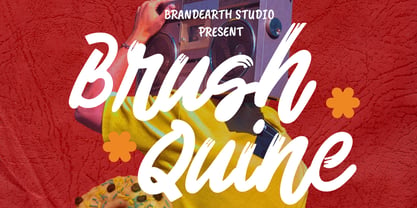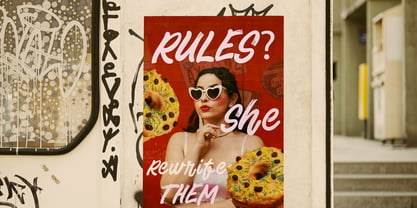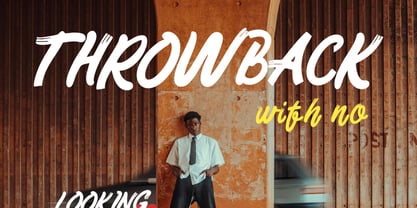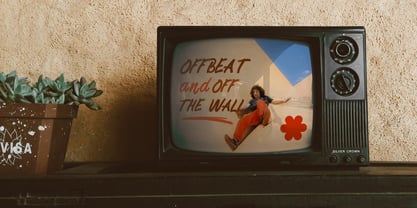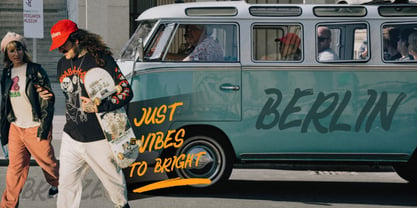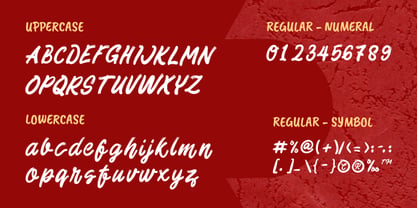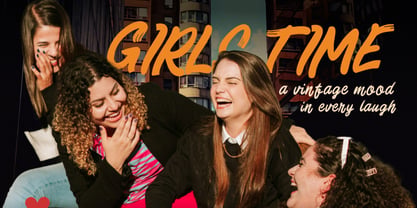
Brush Quine
by Brandearth
The Brush Quine Font Family was designed by Moch Rasjid Wiyono and published by Brandearth. Brush Quine contains 1 styles. More about this family
Brush Quine is a bold and expressive brush script typeface designed to bring energy, personality, and handcrafted character into your creative projects. Inspired by dynamic brush lettering and modern street-style typography, this font features natural strokes, textured edges, and fluid letterforms that create an authentic hand-painted look. Brush Quine is highly suitable for projects that need bold personality and creative energy. Its brush-style strokes make it perfect for branding, posters, music artwork, lifestyle content, social media graphics, packaging, and editorial headlines.